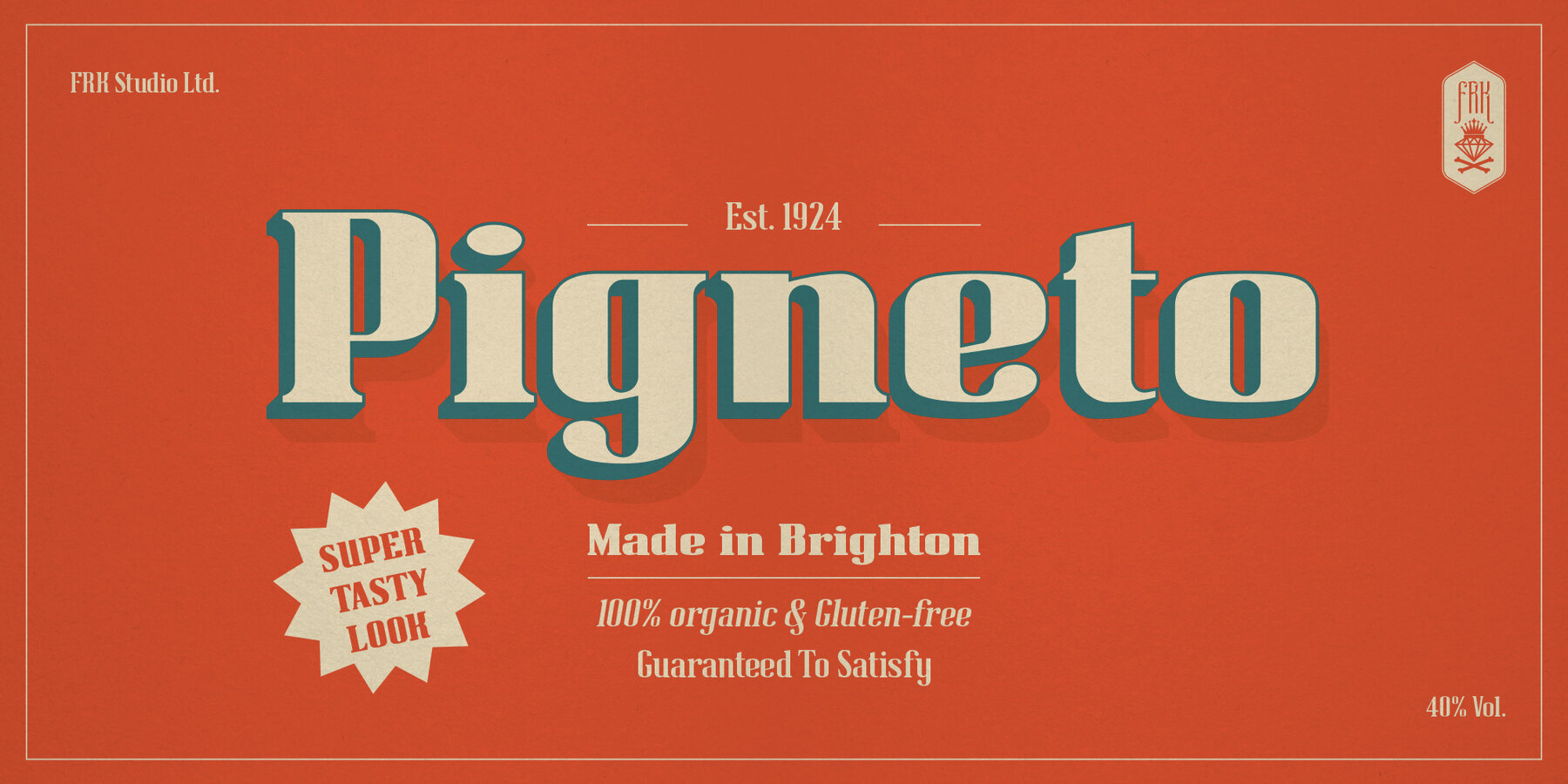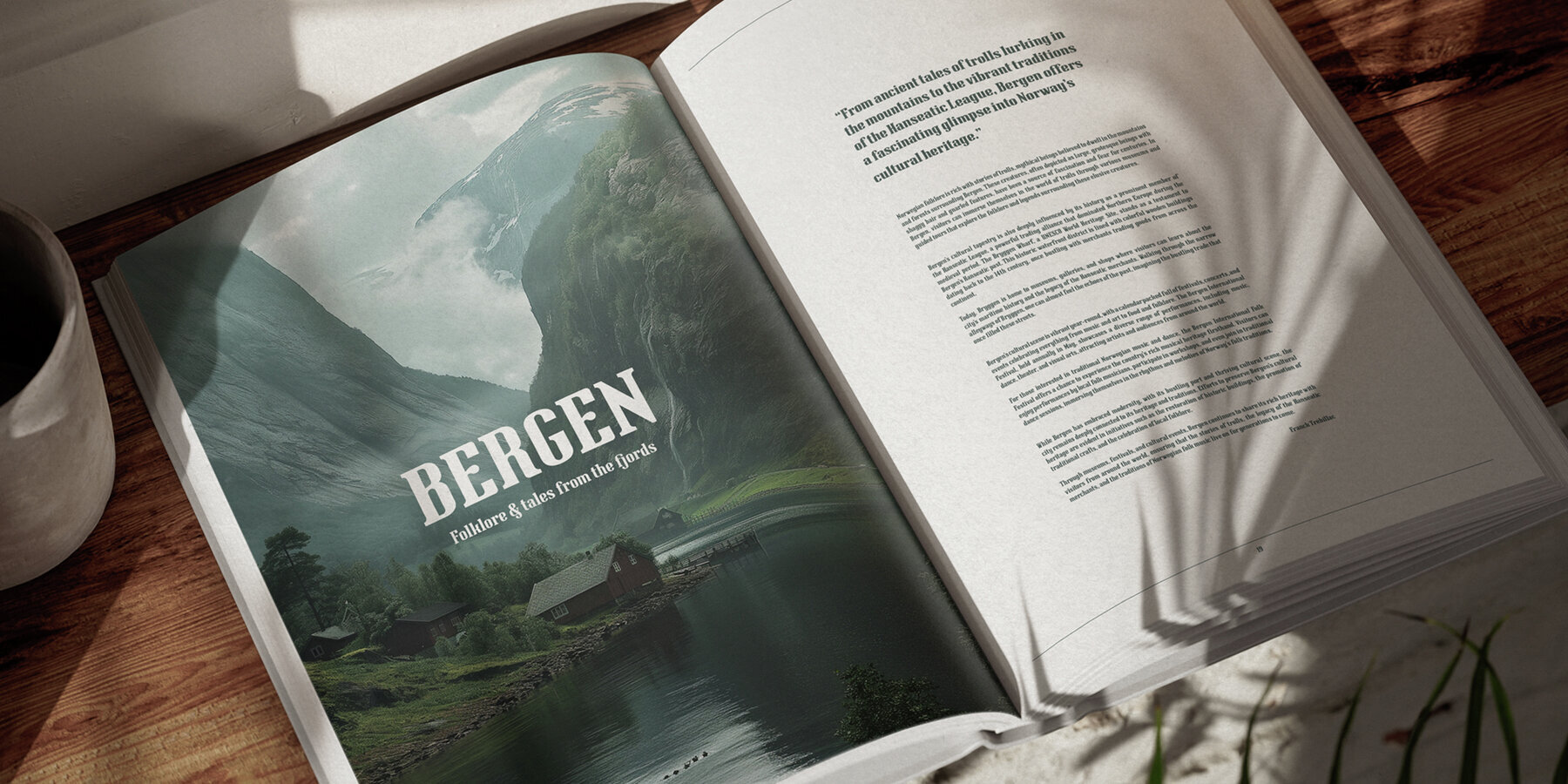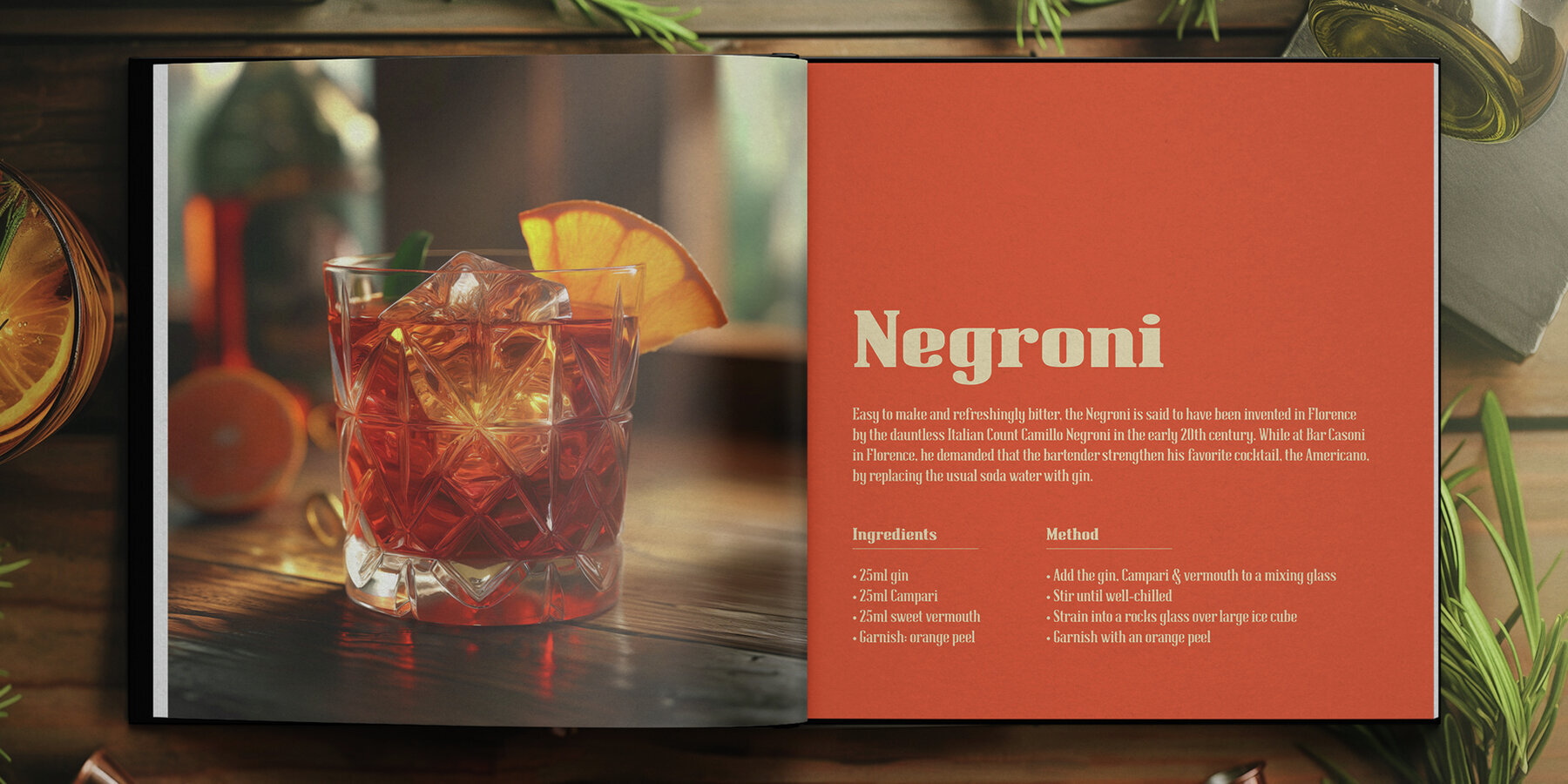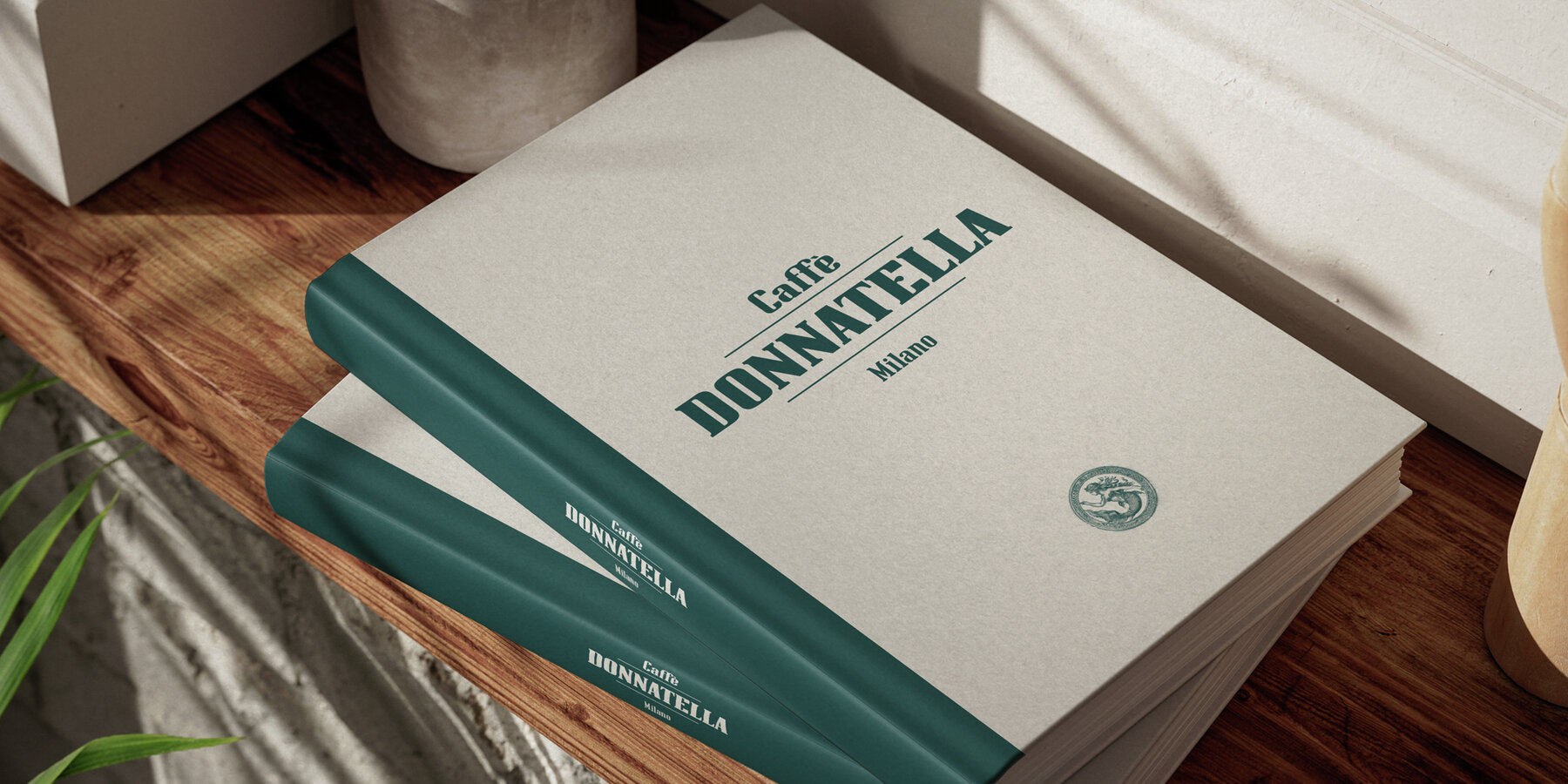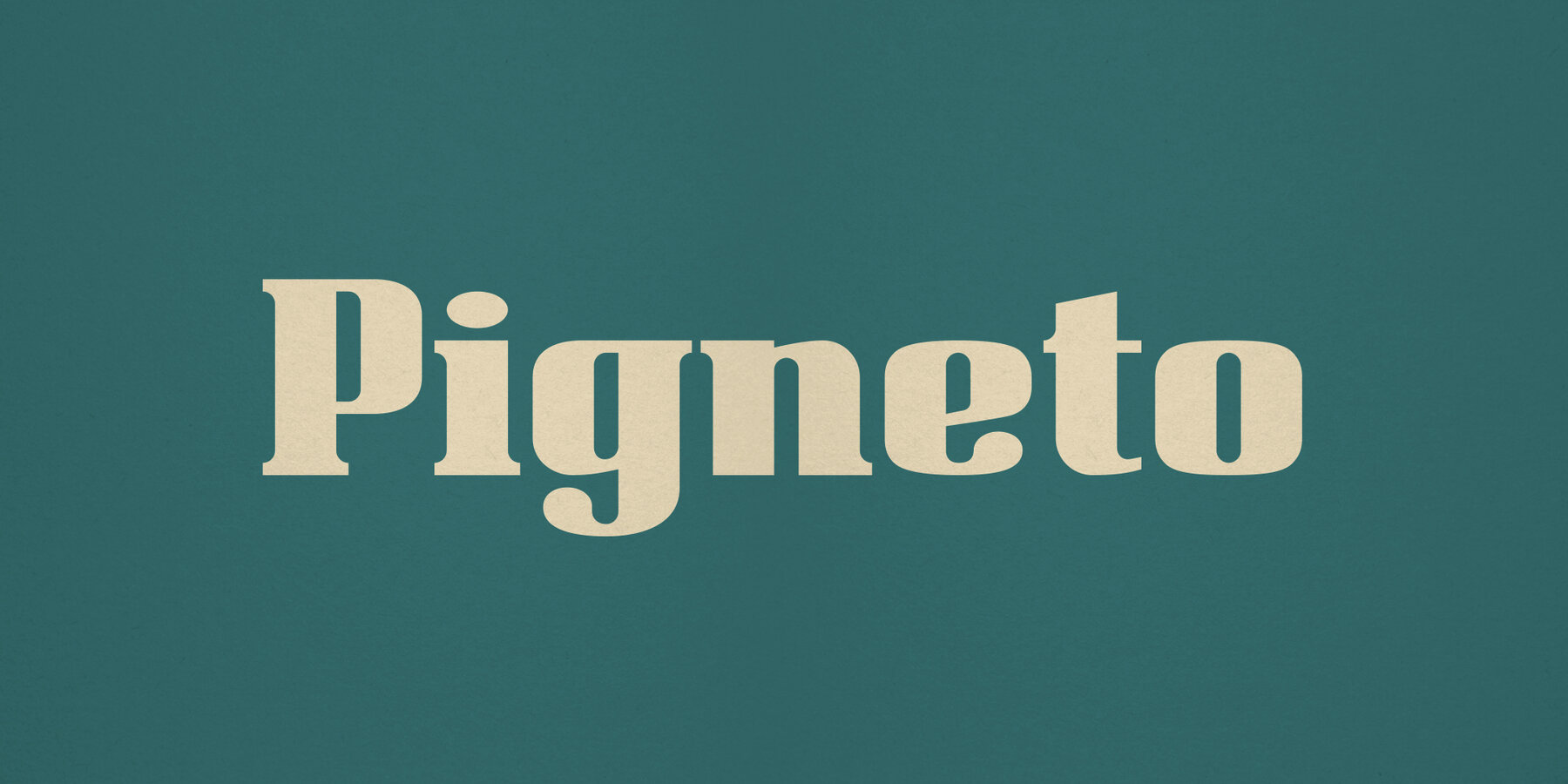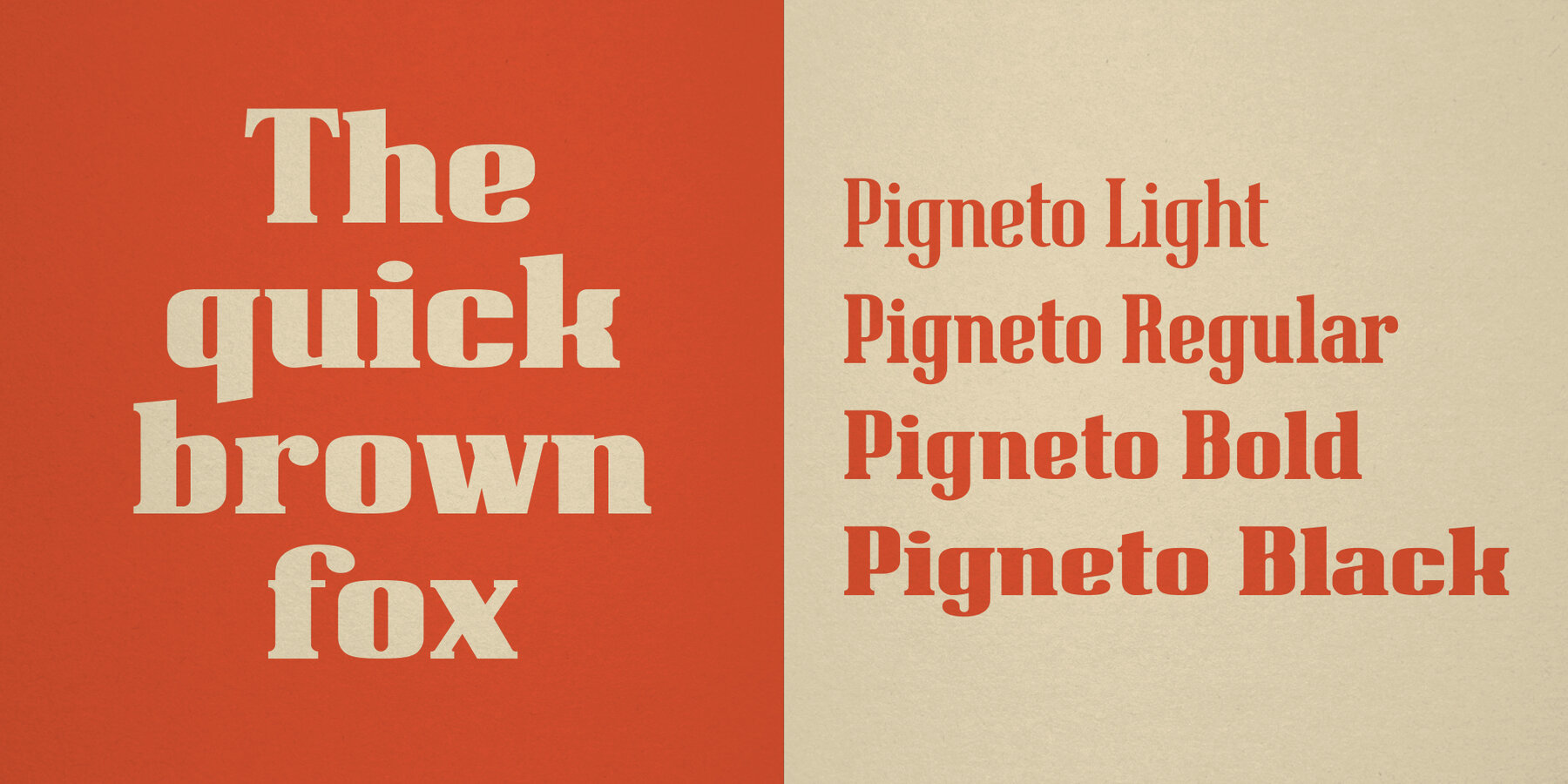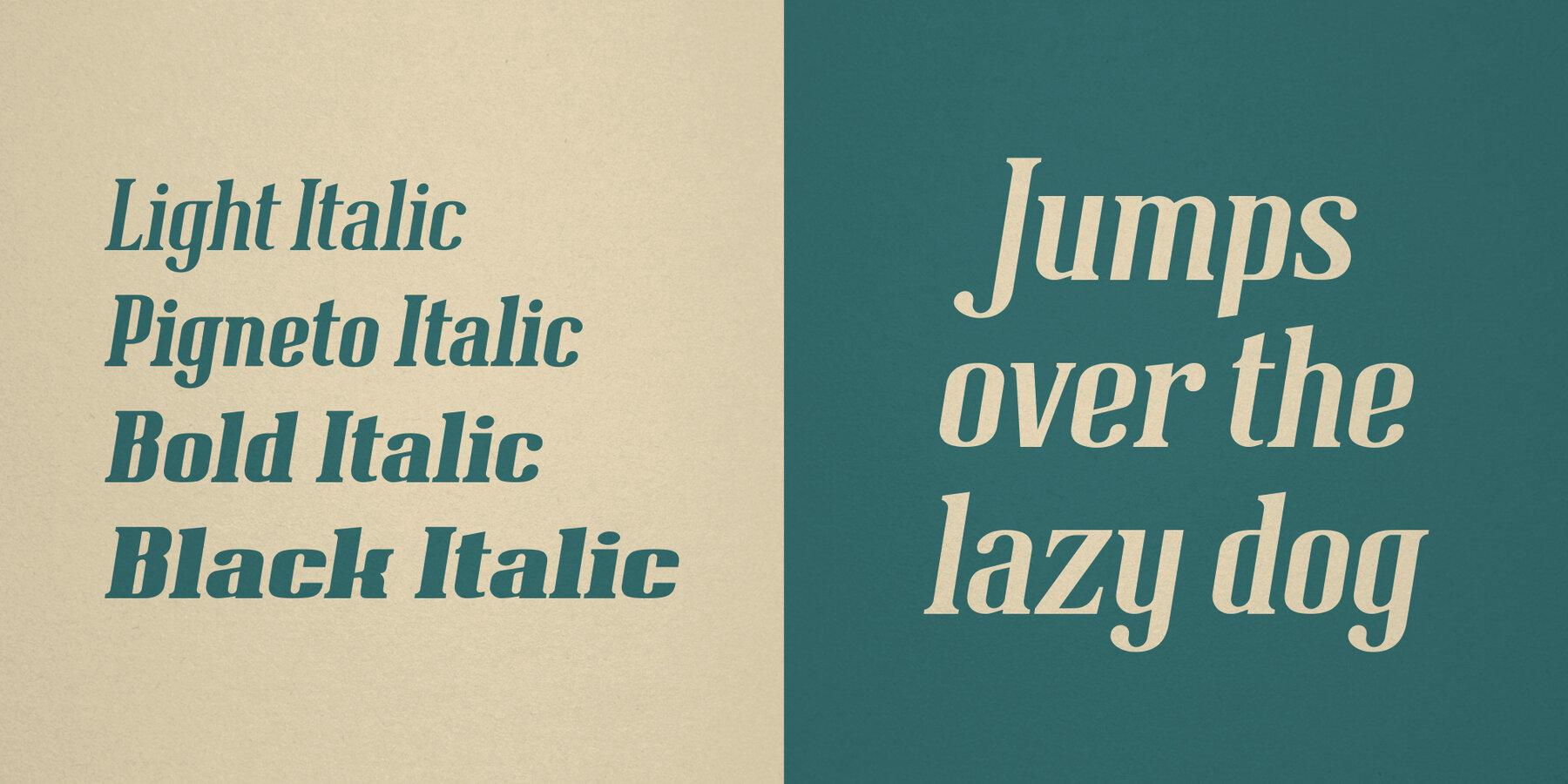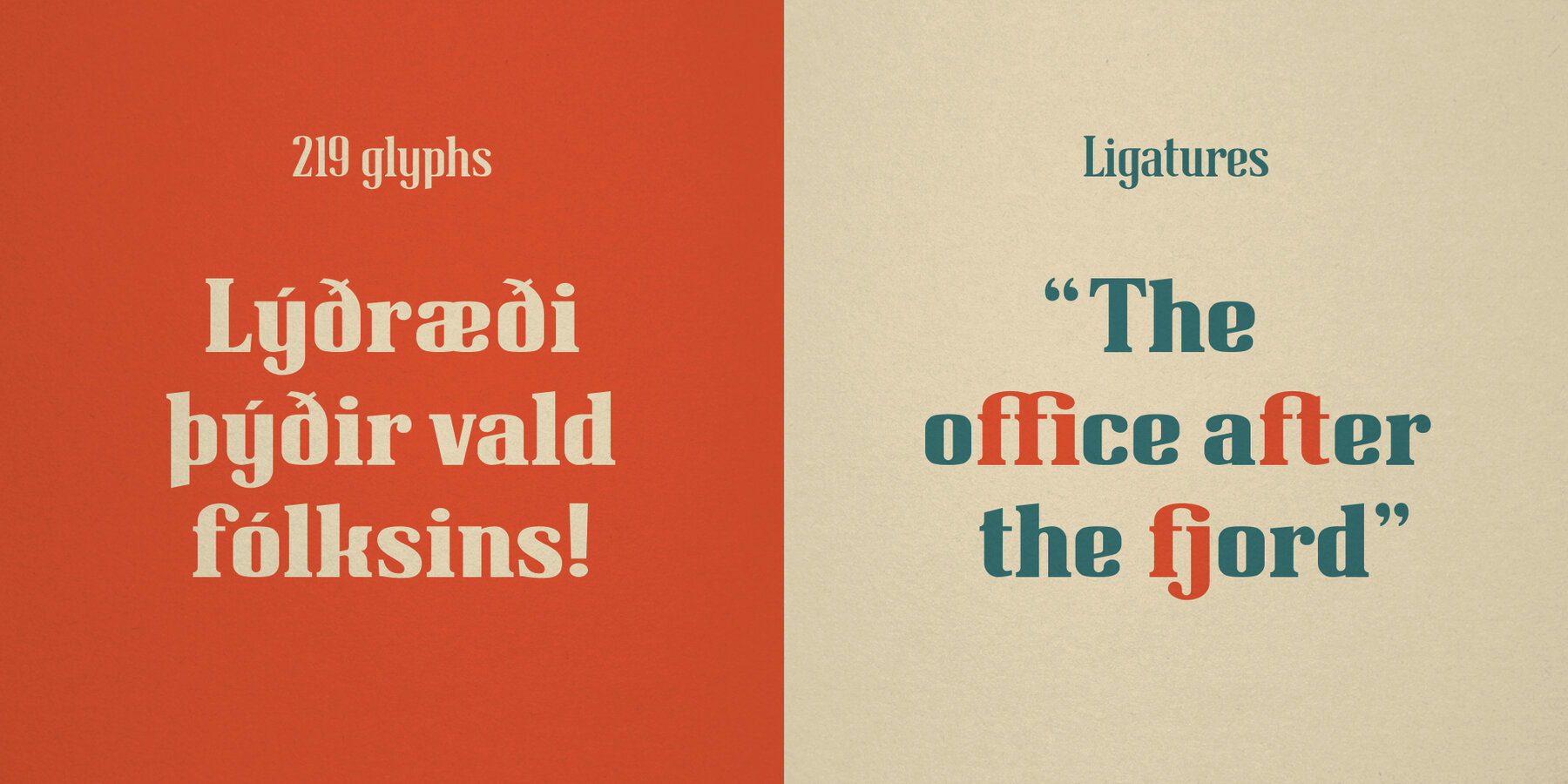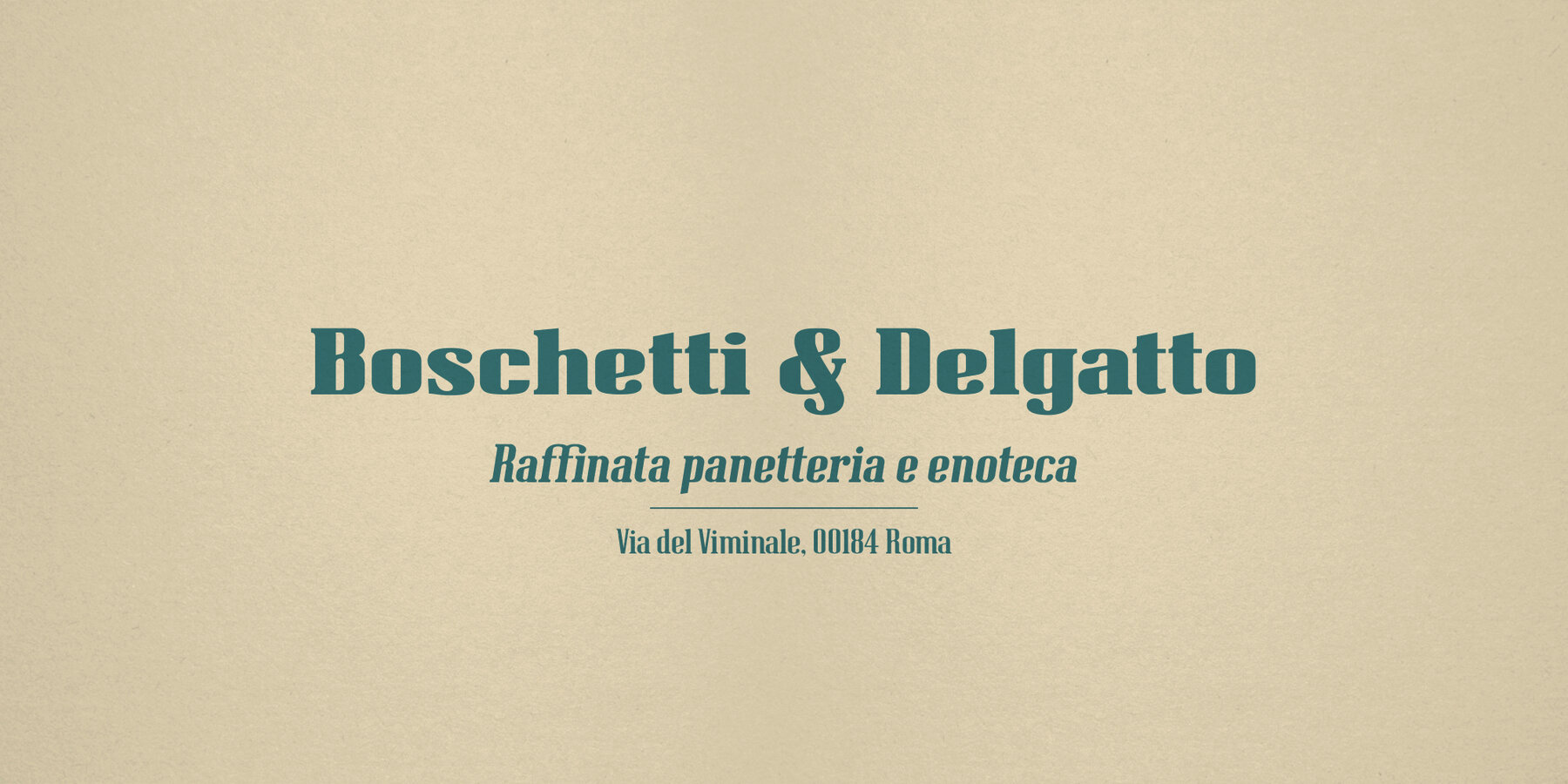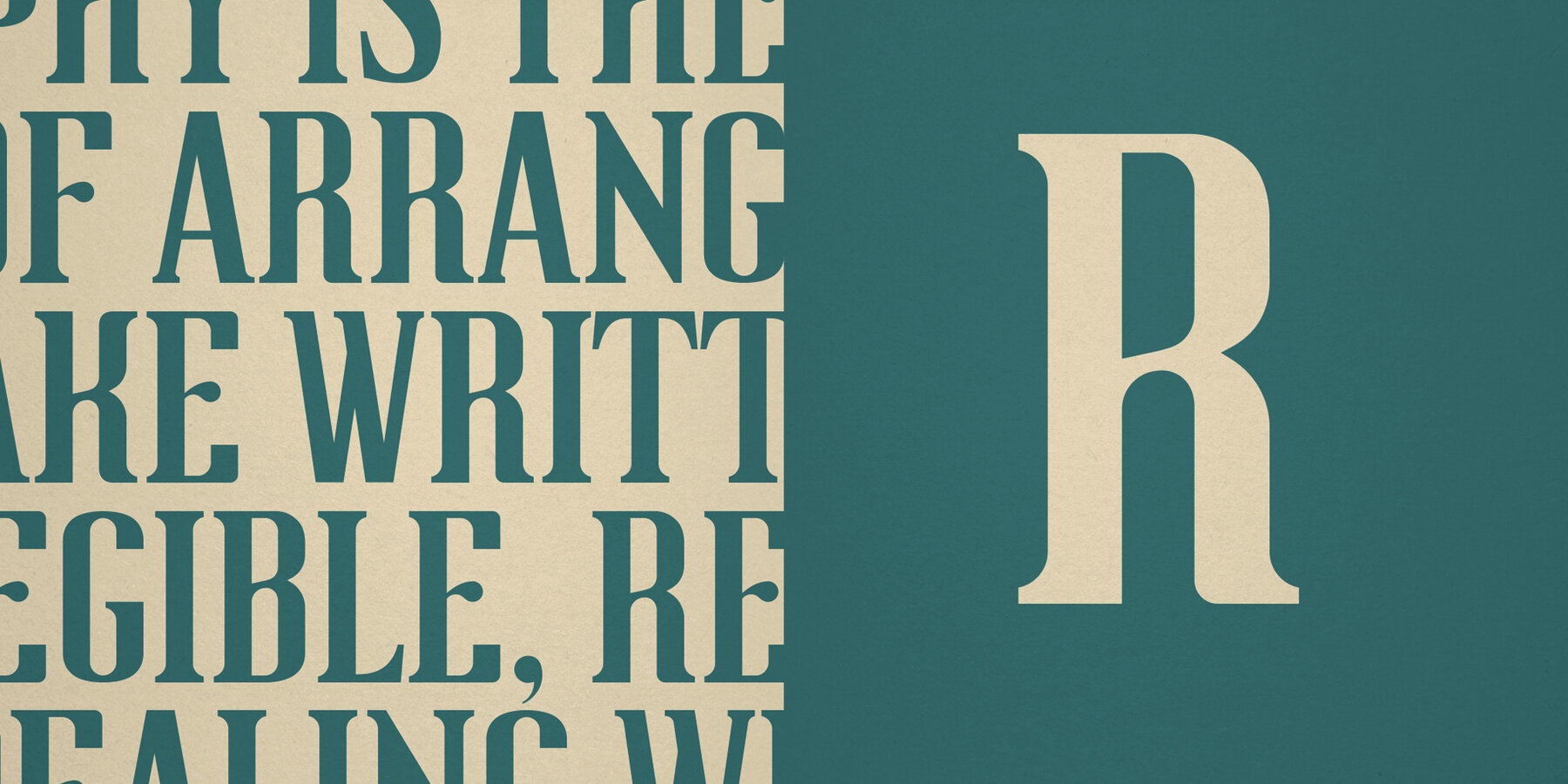
Pigneto Font
With a solid personality and elegant looks Pigneto is a mid-century inspired serif typeface. Versatile and meticulously crafted the Pigneto family consists of eight weights offering a bold array of flavours, seamlessly capturing the essence of heritage while embracing modern aesthetics.